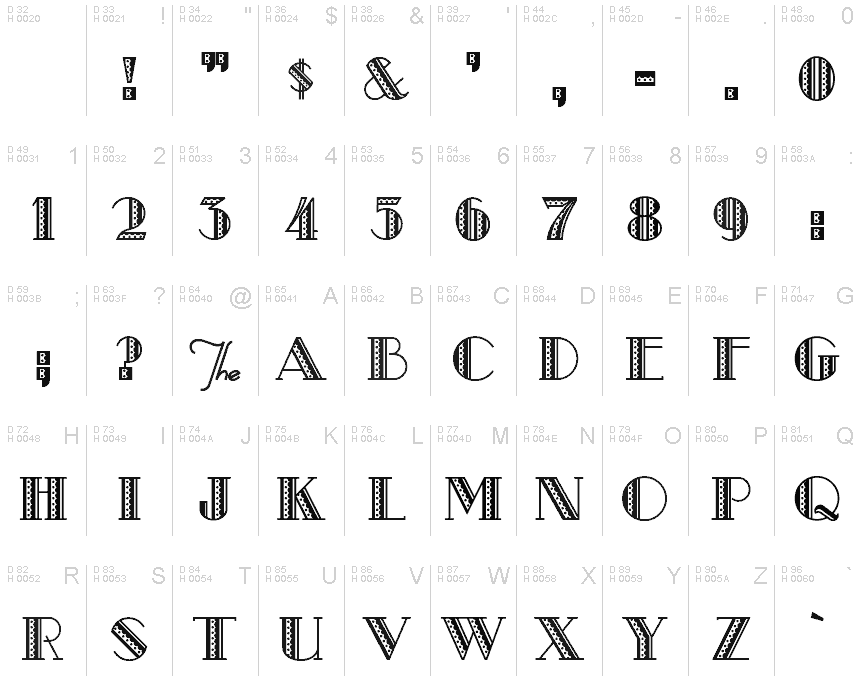
Metro-Retro
Metro Retro, a captivating display font crafted by Nick's Fonts, exudes a bold, vintage-inspired aesthetic. This typographic masterpiece boasts an ornate, decorative style that instantly commands attention. Its intricate letterforms, punctuated by striking serifs and deliberate asymmetries, evoke a nostalgic charm that harks back to the golden era of retro design. Metro Retro's unique character is sure to elevate any project, imbuing it with a timeless allure that resonates with audiences.
The font's versatility shines through, making it a versatile choice for a wide range of applications. Its bold presence lends itself beautifully to headlines, logos, and branding initiatives, instantly captivating viewers with its retro-futuristic flair. Whether you're crafting eye-catching poster designs, designing memorable event materials, or seeking to infuse your digital projects with a touch of vintage-inspired elegance, Metro Retro by Nick's Fonts is a captivating option that is sure to leave a lasting impression.